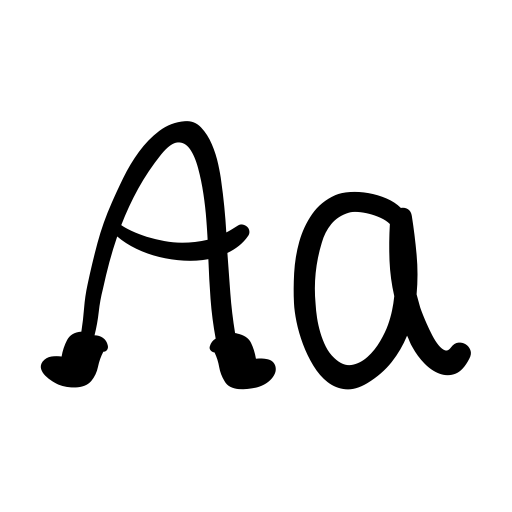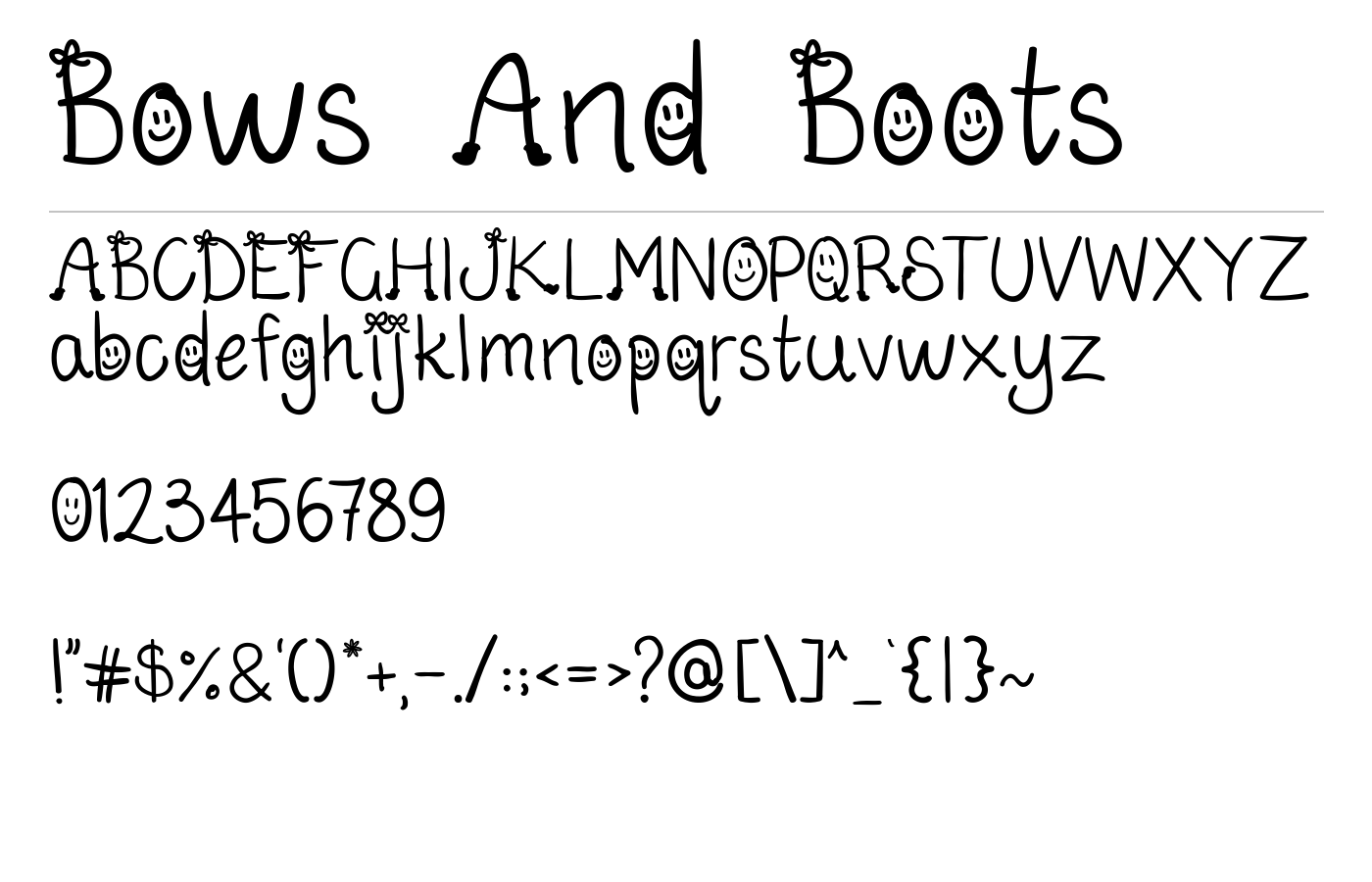
Bows And Boots is a playful, hand-drawn sans serif font with whimsical details like smiley faces inside letters and bow decorations on select characters. Its irregular, light strokes and tall x-height give it a cheerful, casual feel that works well for children’s books, crafts, and fun branding. This font adds a friendly, informal touch perfect for creative projects seeking charm and personality.
Bows And Boots Font
About Bows And Boots Font
| Font family | Bows And Boots Font |
| Designer | Belinda Prestwidge, Dayana Rocha and Priscilla Serio. |